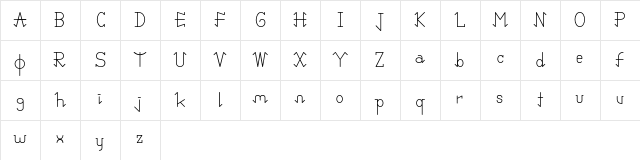
Complete Pixo Demo Regular glyph index. Displaying only characters natively supported by Pixo Demo Regular font.
Pixo Demo is a composed and adaptable typeface that performs quietly and consistently across a wide range of design contexts.